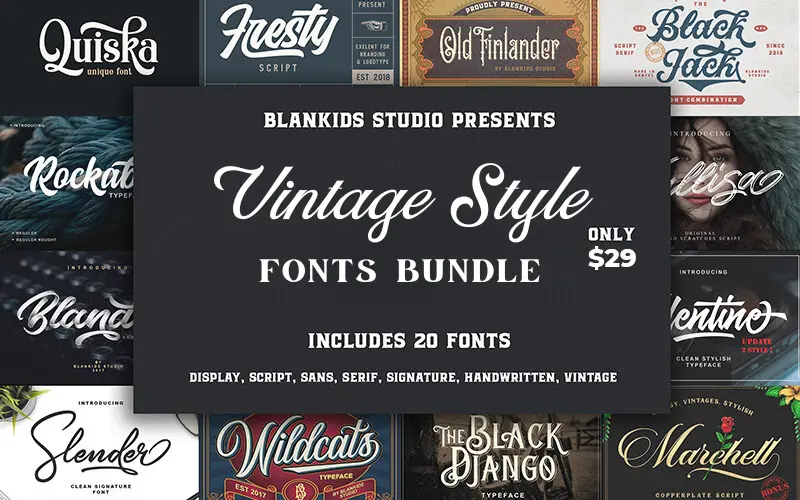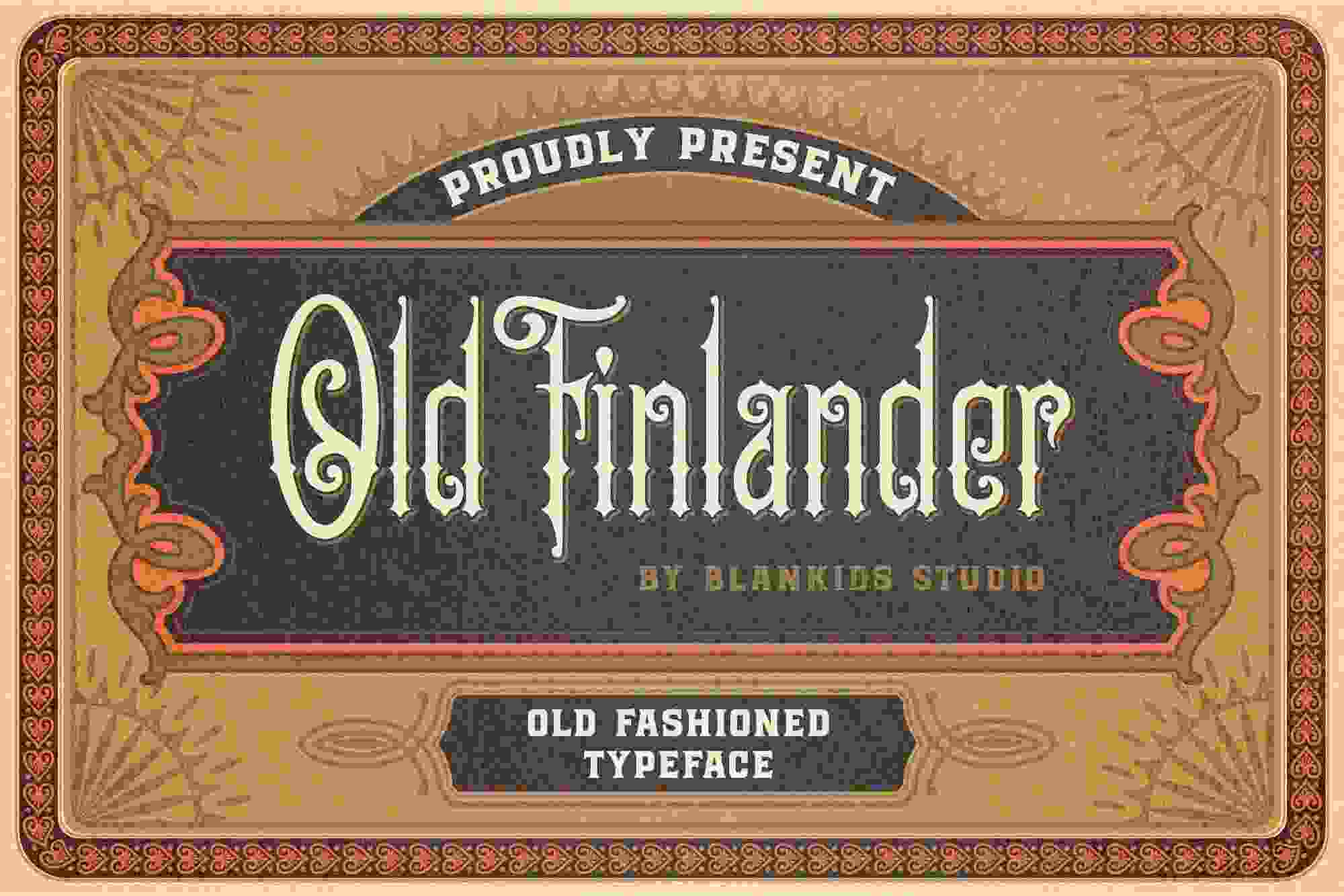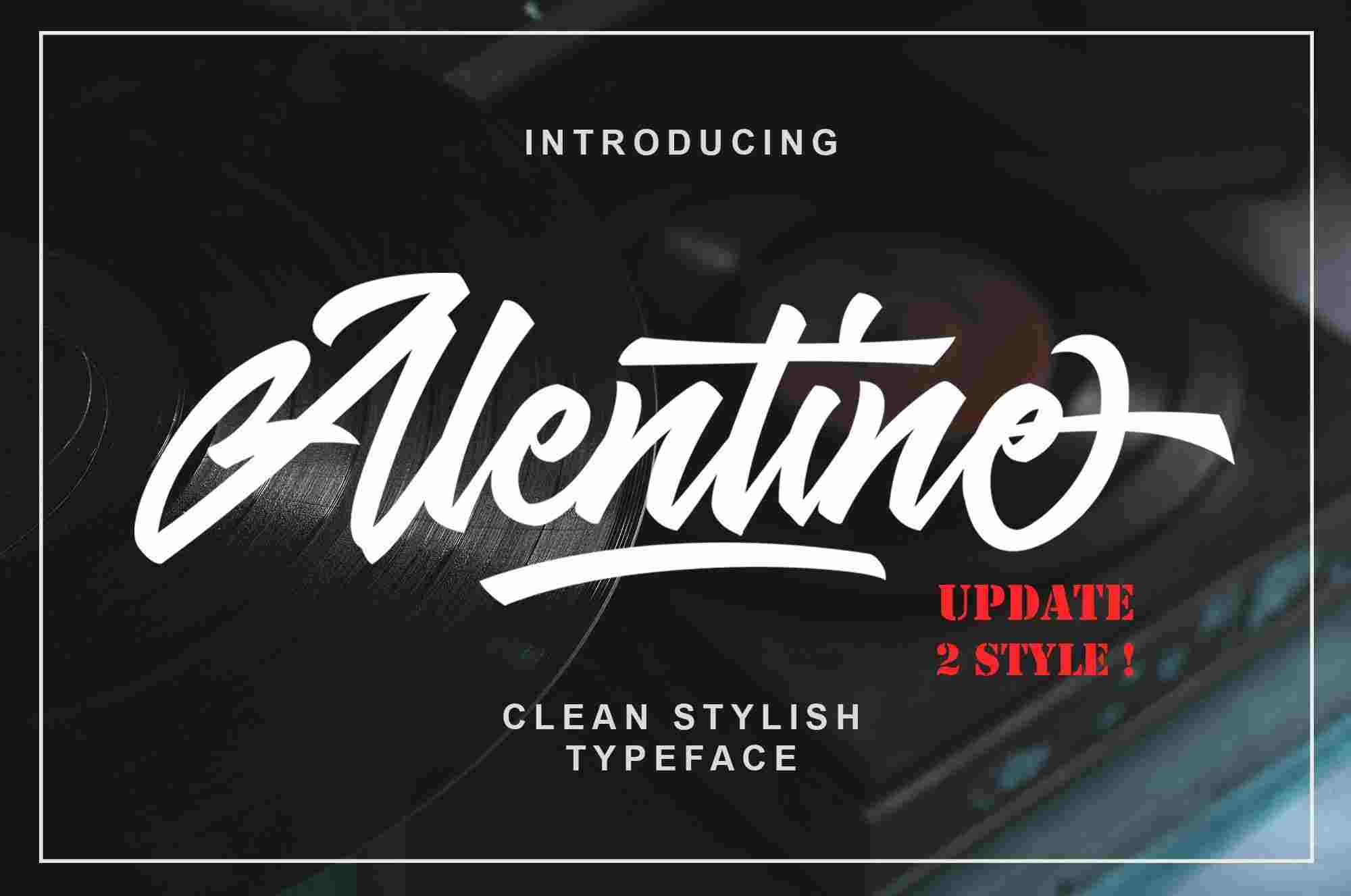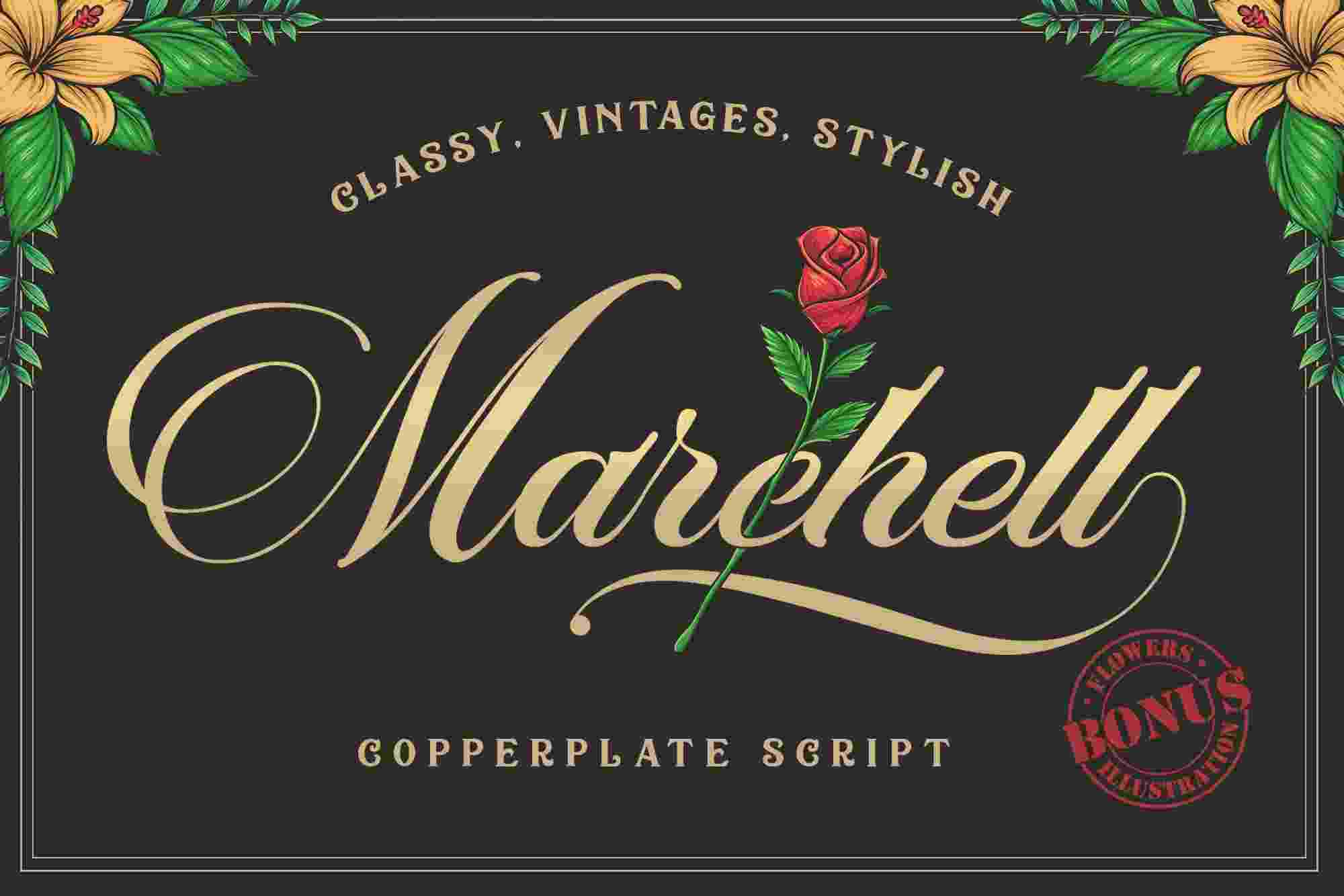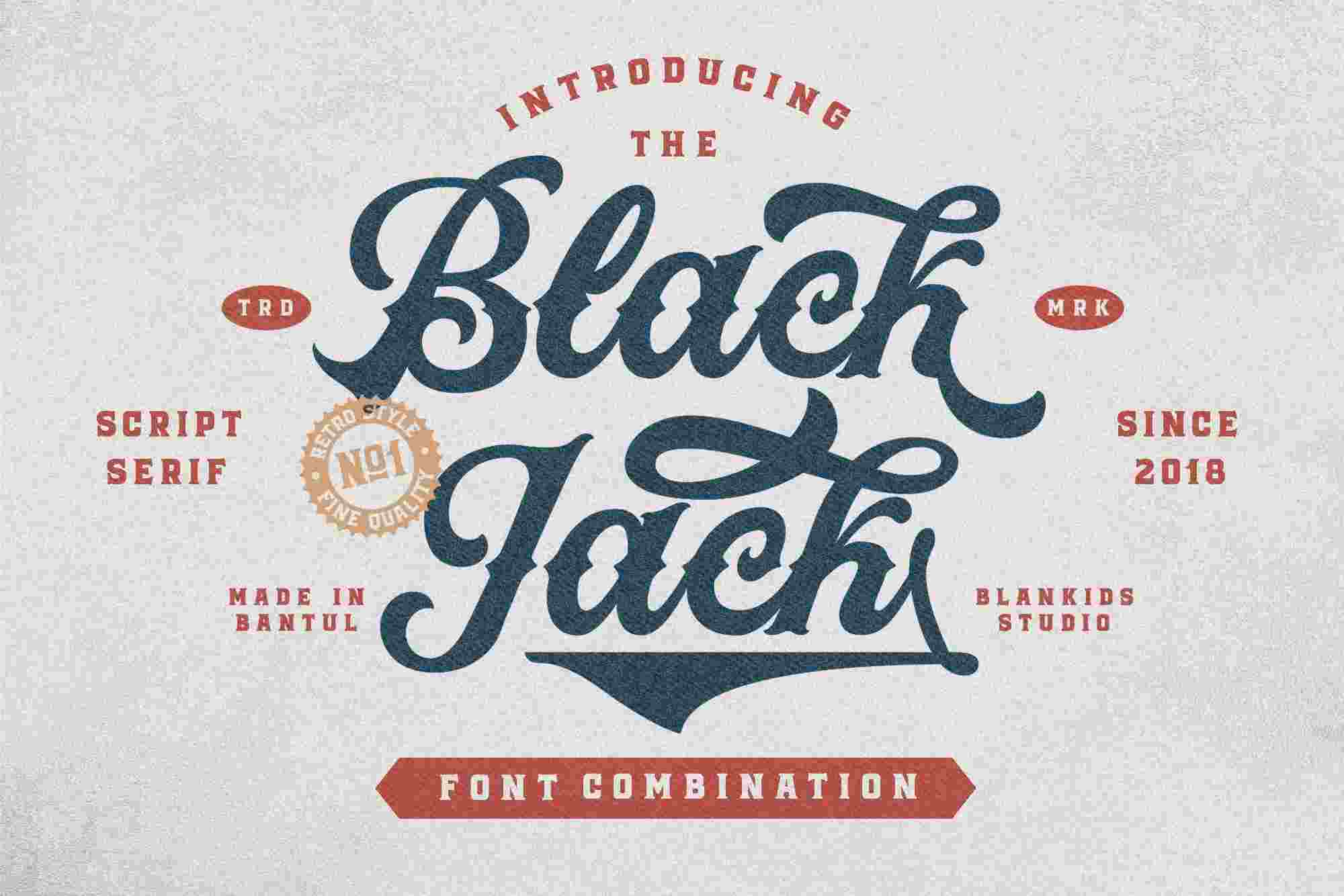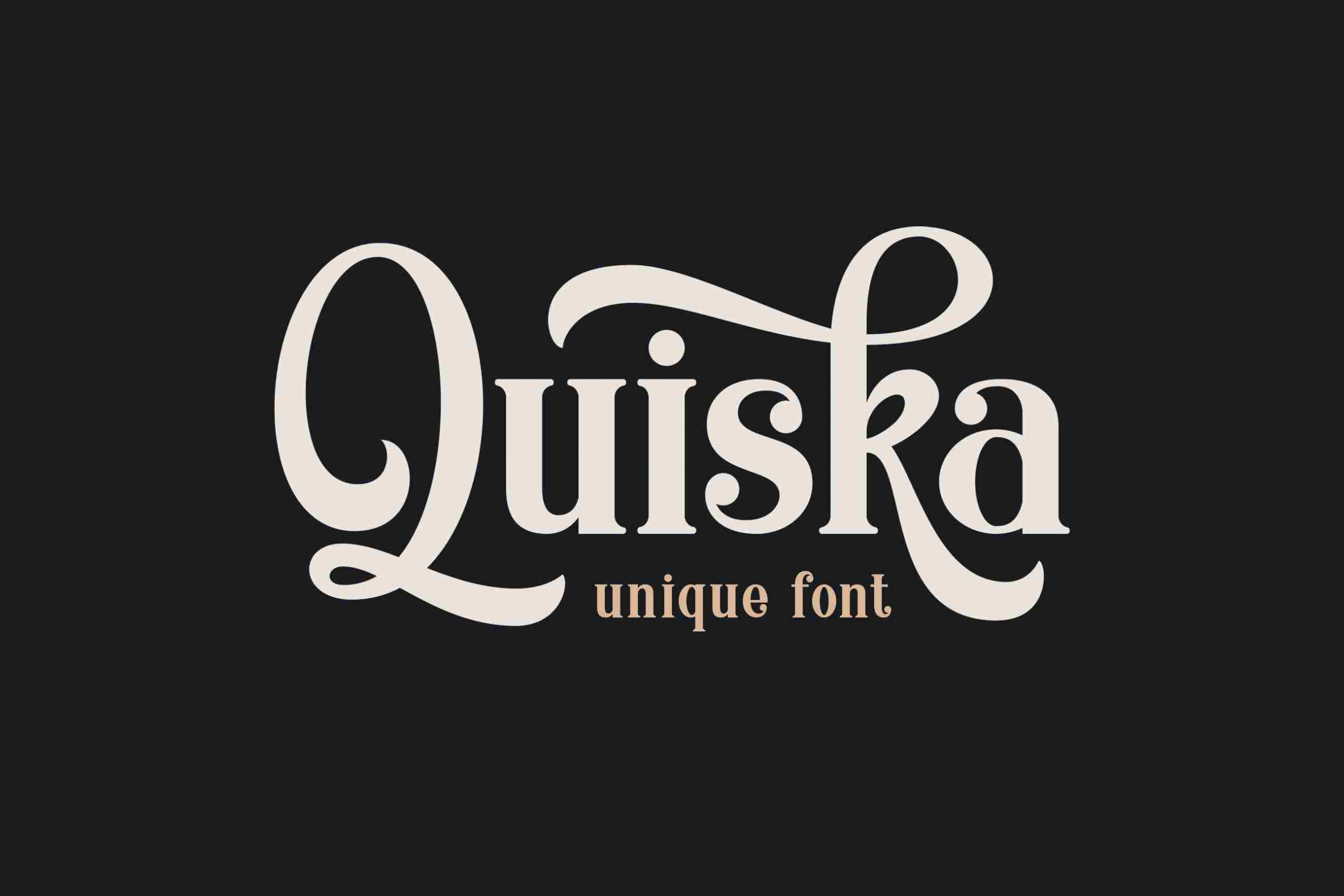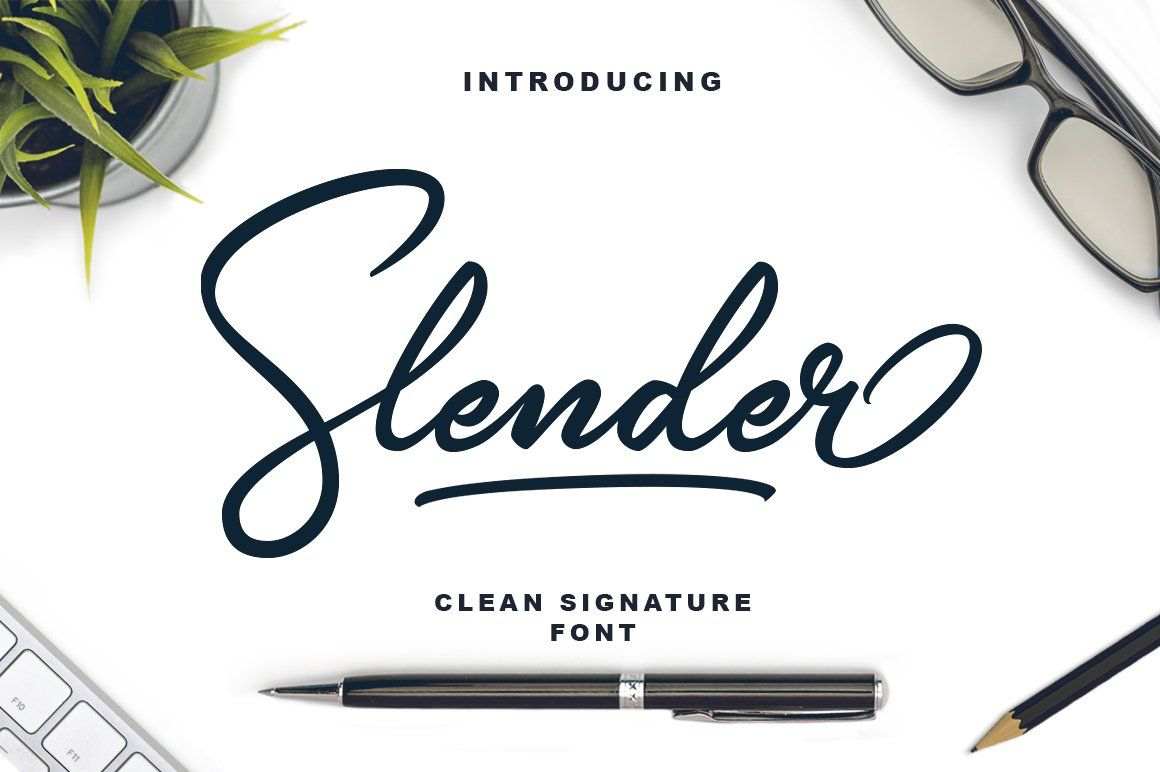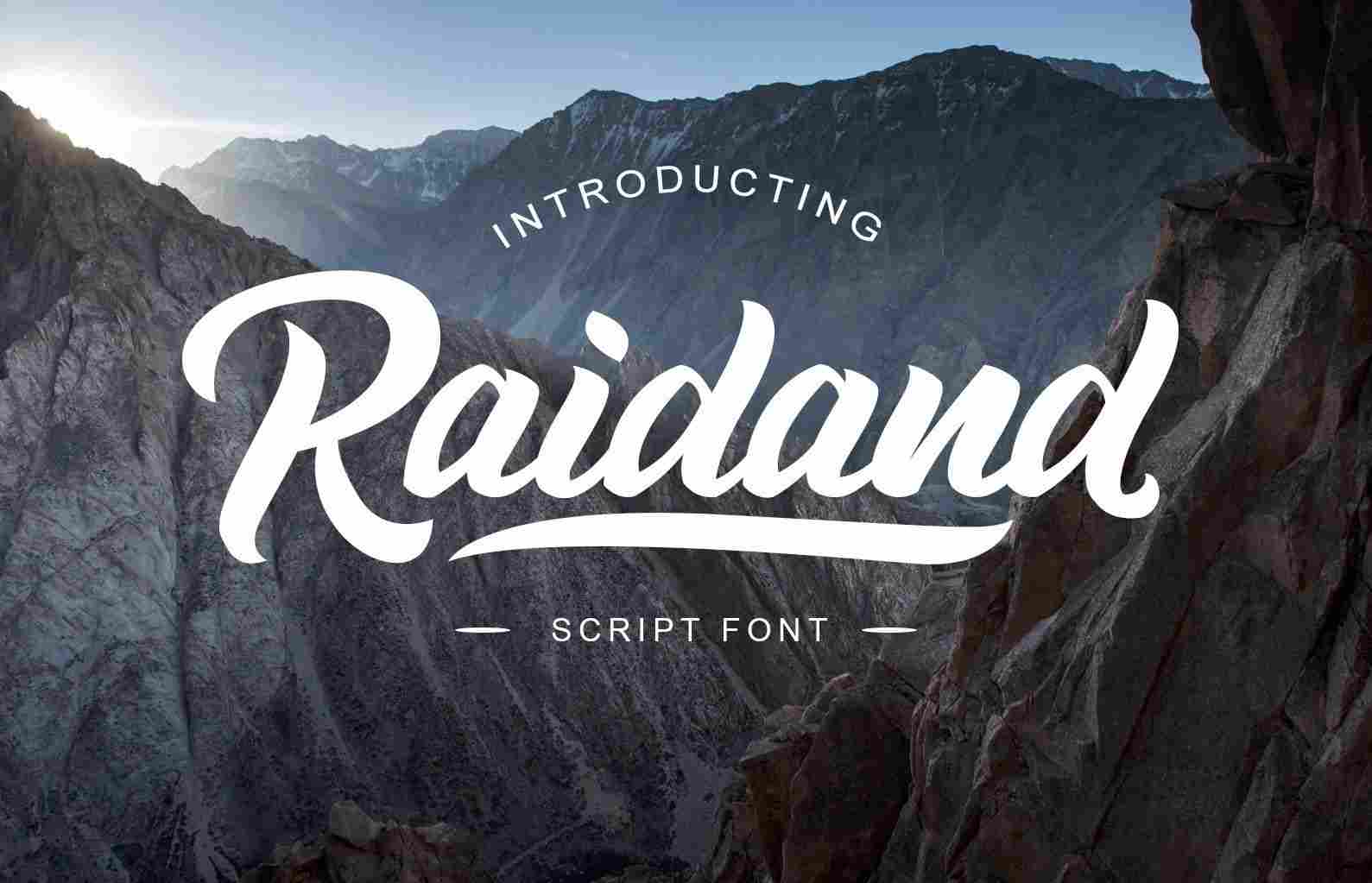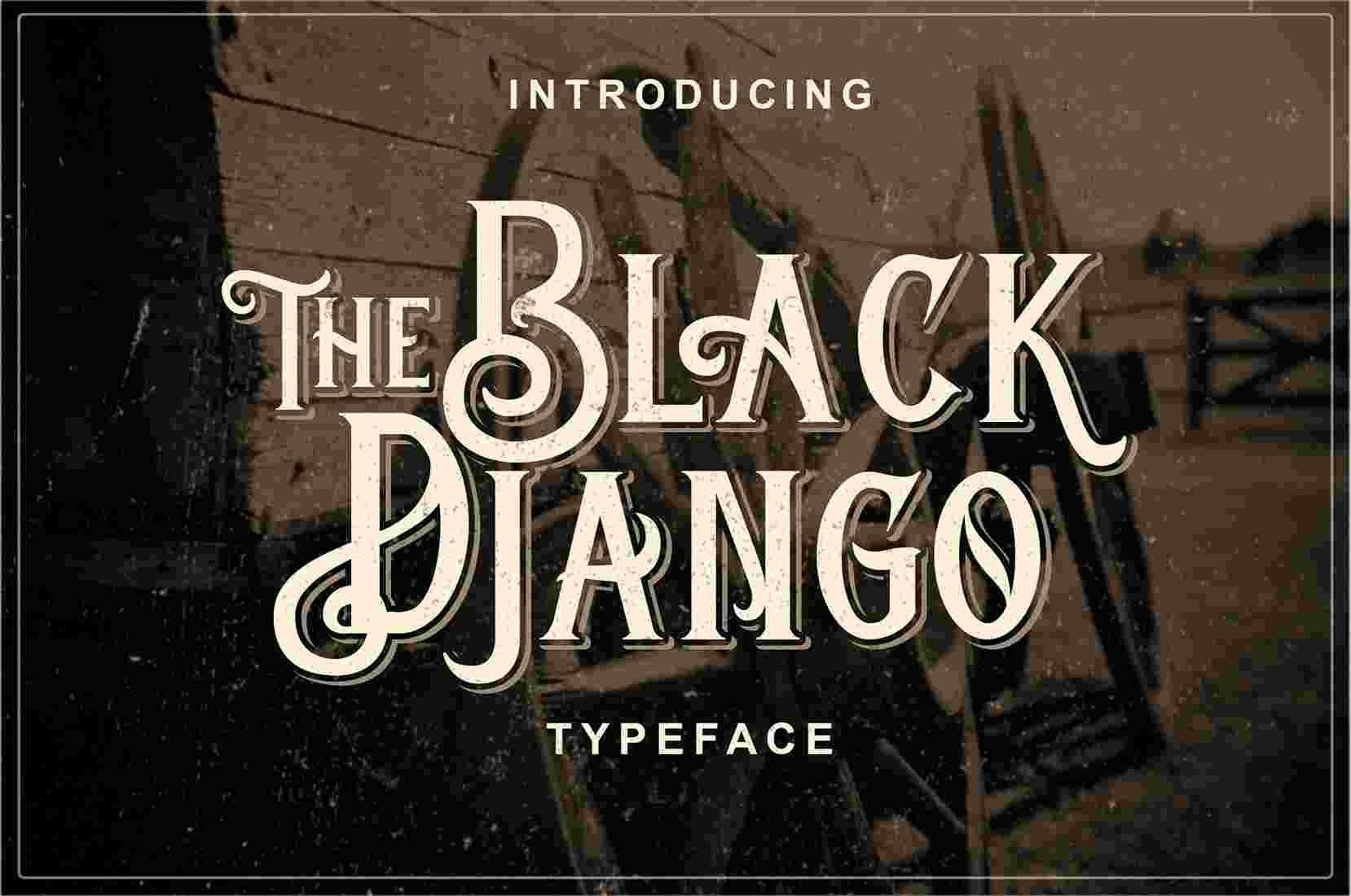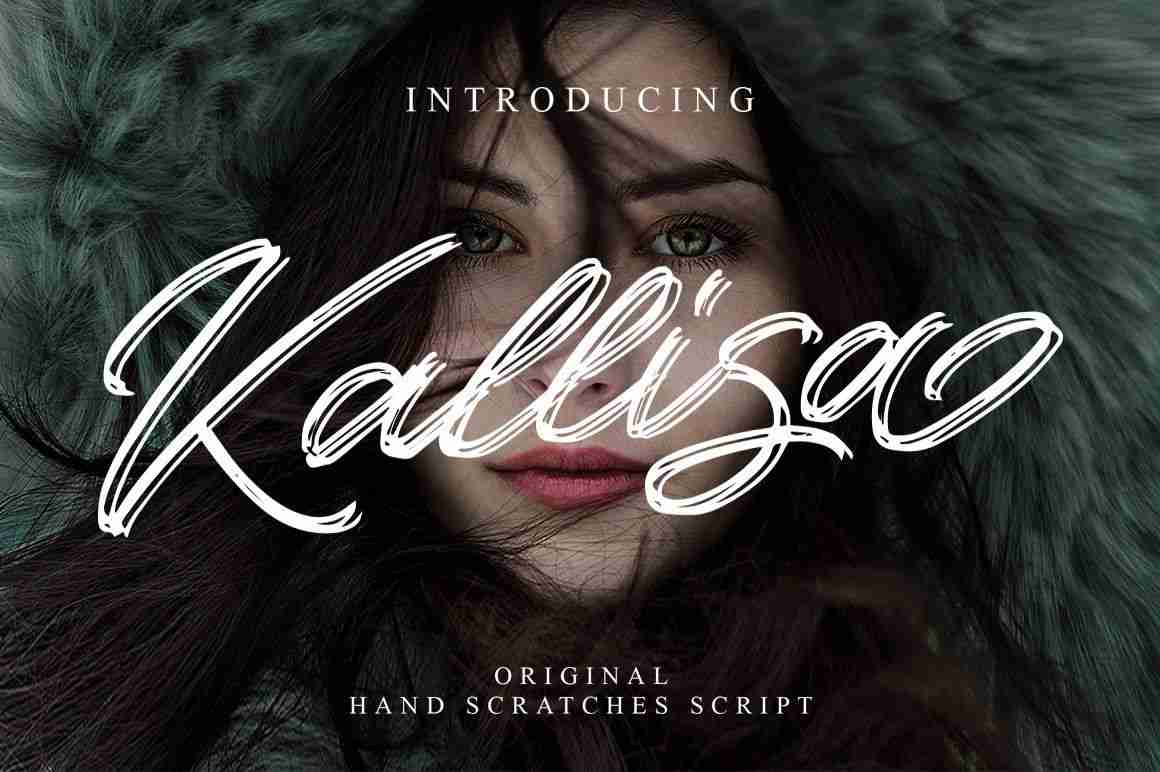
Let Your Graphics Speak To You With These Vintage Style Fonts!
Don’t we all get the occasional, ” This image just doesn’t speak to me! Can you make it better?”
If you are smart enough you can make your images hum the tune you want with the correct selection of fonts.
A raunchy font for the opening of a retro salon, or a classic font for a victorian wedding invite, a slender feminine font for a bachelorette stash, & many more.
This bundle includes 20 vintage style fonts with distinct styles (script, serif, sans, display, modern script, brush script, vintage and display) so you have fonts for every occasion in one package.
This Bundle Includes:
- Alentine
- Typeface
- Black Django Typeface
- Black Jack Font Combination
- Blandes
- Casella
- Fresty Script
- Kallisa Script
- Marchell Bonus
- Old Finlander
- Quiska Unique Font
- Raidand
- Rockaboy
- Slender Clean Signature
- Wildcats Typeface
A Sneak Peak Into The Fonts Bundle: